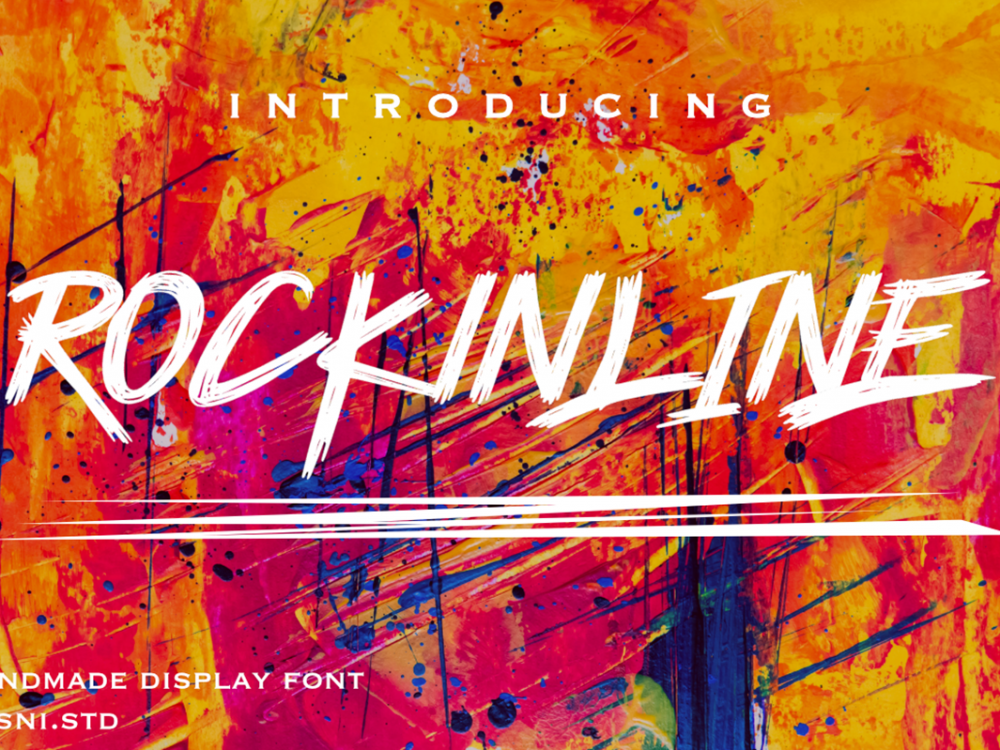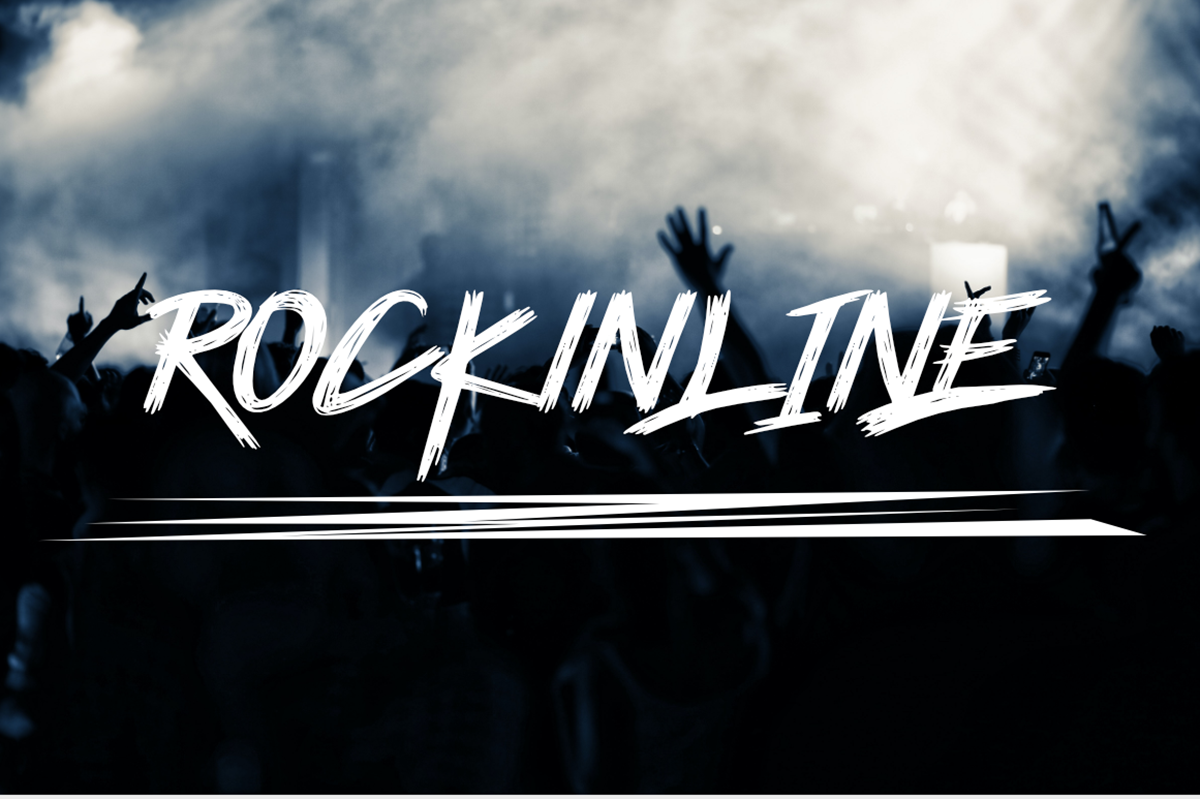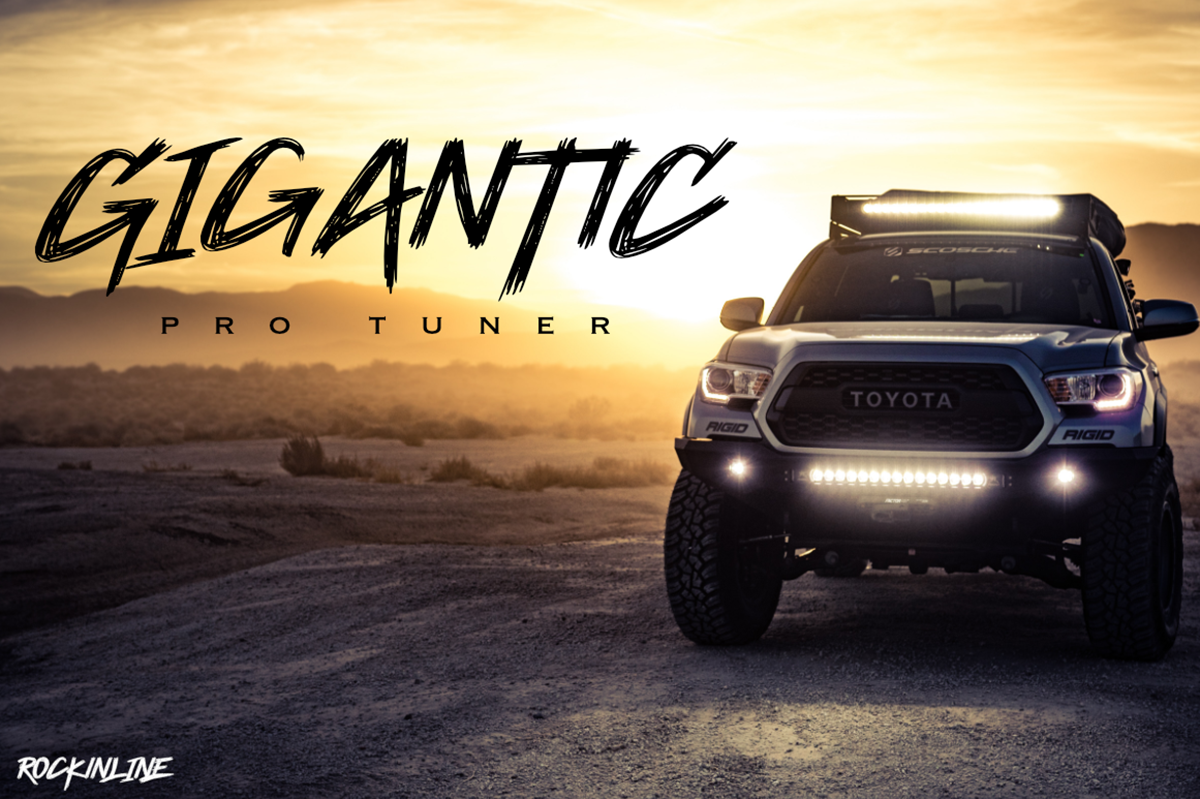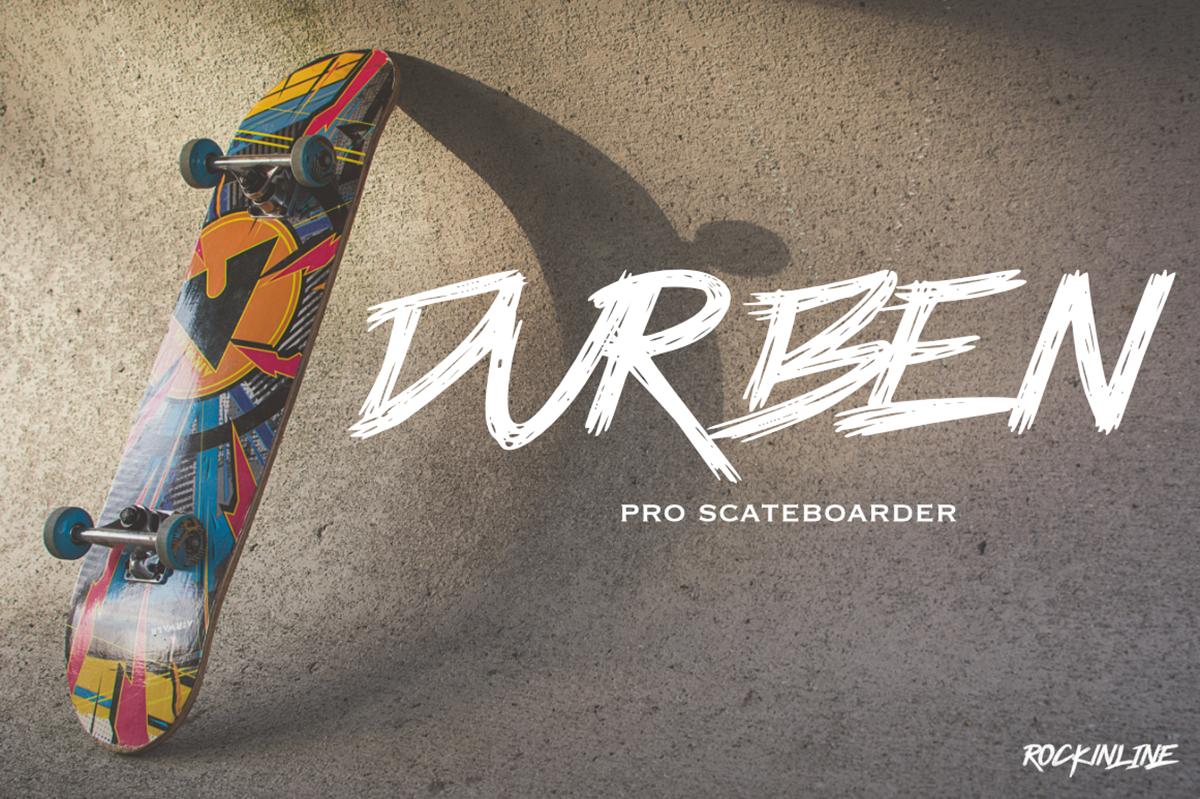
Rockinline Free Font
Rockinline Free Font is an interesting modern beautiful handwritten font that simulates detailed brush writing and is very suitable for creating various design projects that require a scripted font. These can be posters, invitations, cards, branding, flyer prints, and more. If you wish to access more features and use them for commercial work please buy the full version.
Author: Bery Arisandi